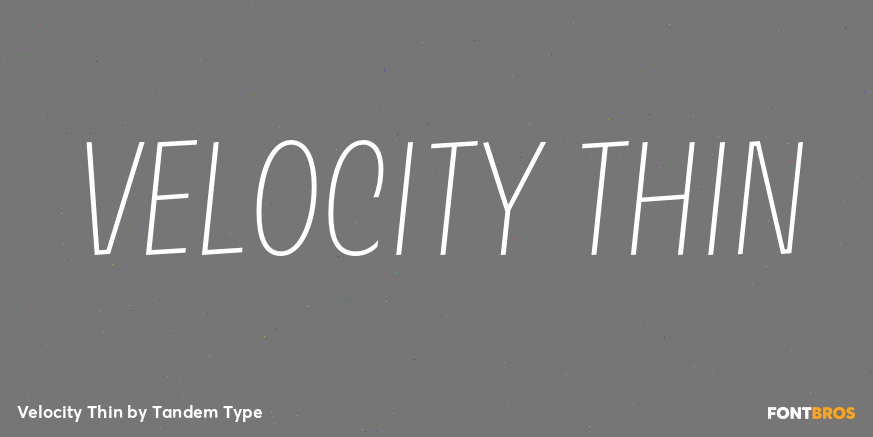
Velocity
Font Family by Tandem Type
Velocity is an all-caps, attention-grabbing sans serif, ready to accelerate across the starting line with horizontally tight letterforms that prioritize compactness without becoming cramped. Its high degree of curvature and forward momentum make it ideal for branding and contemporary design, shining when set in large type. With 12 stylistic sets and three sets of diacritics, Velocity easily adapts to different design environments. All 7 weights are duplexed, allowing quick switches from Thin to ExtraBold when sprinting towards the end-line.
Designed by Paul Hanslow, with assistance from Kaja SÅ‚ojewska.